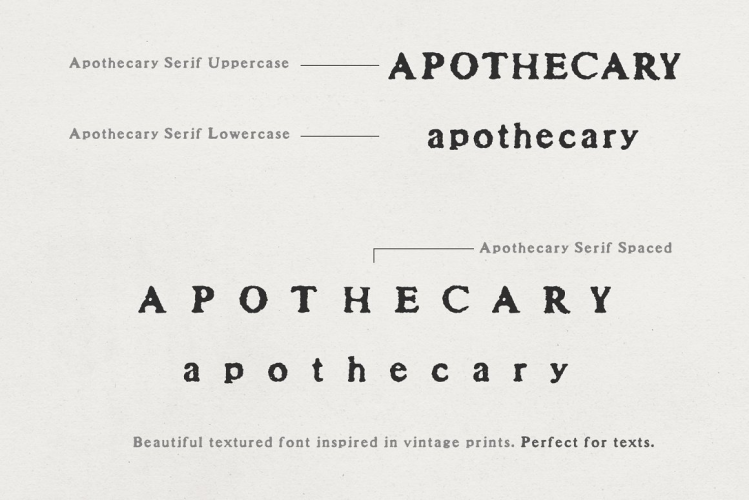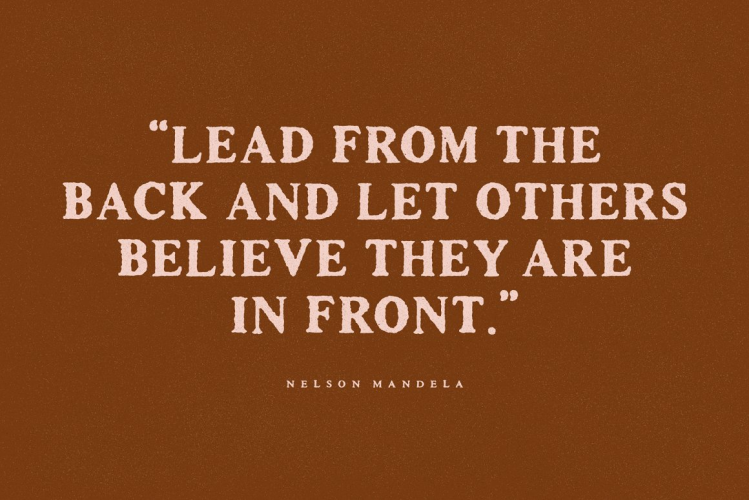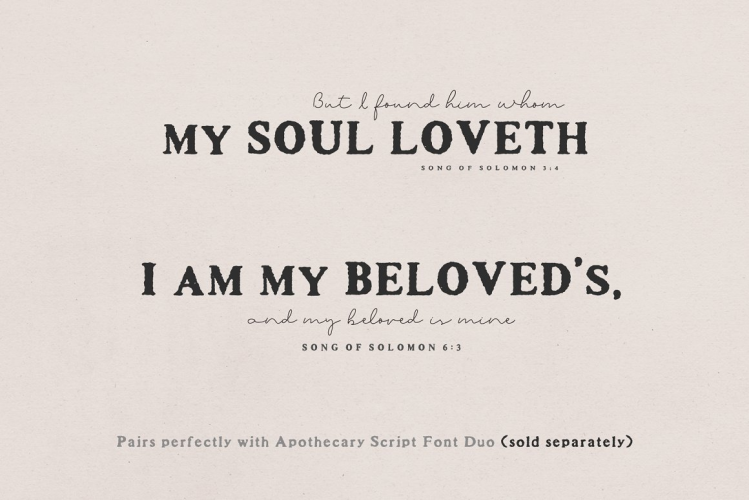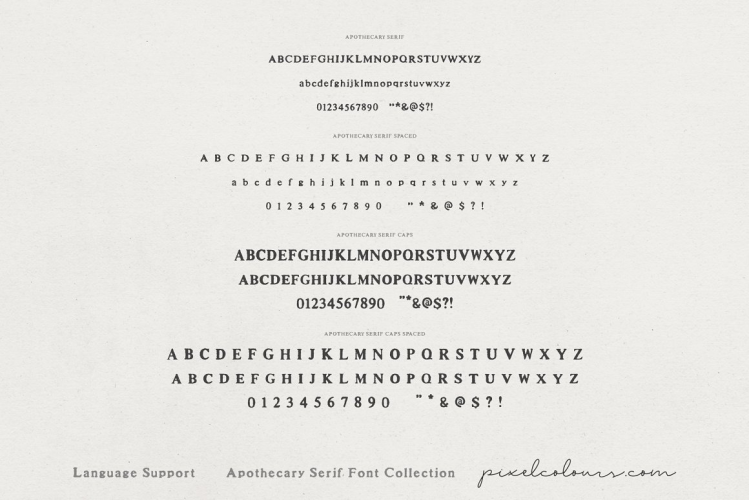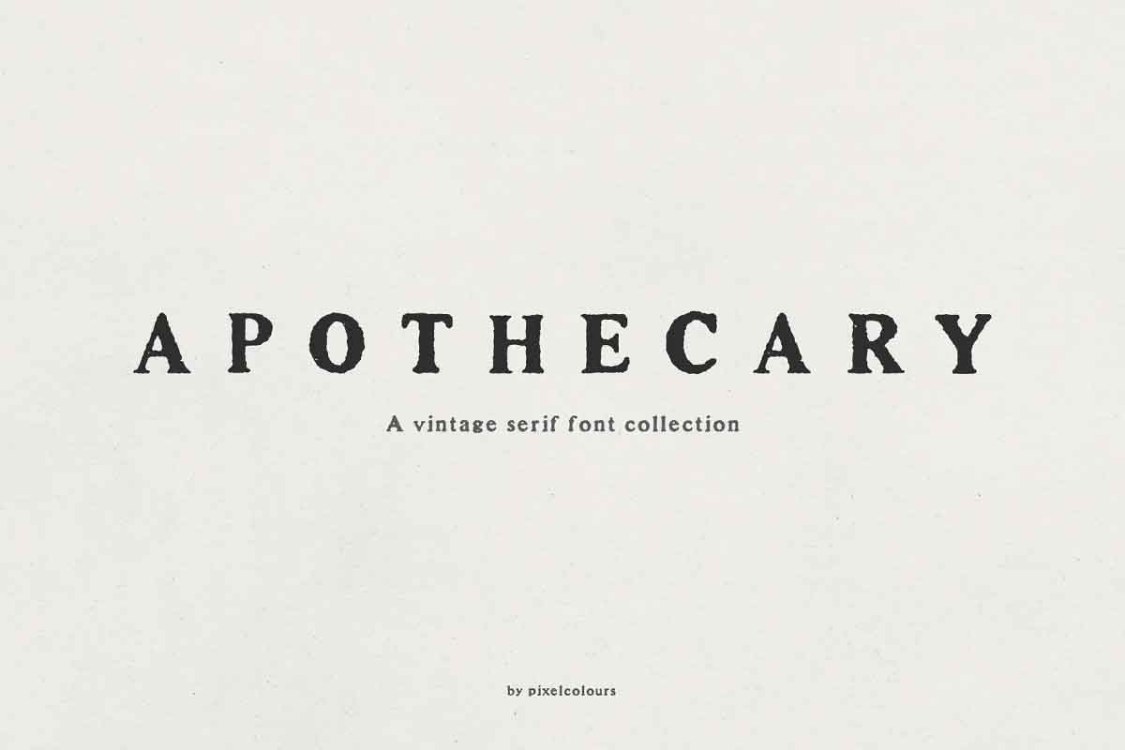
Apothecary Font
Apothecary is a serif font collection inspired by vintage and antique prints. It is excellent for texts or headings and perfect as a pairing font. Design quotes, packaging, wedding invites or labels, and branding in a vintage style. Lovingly designed to match my original Apothecary Script (sold separately)
This beautifully crafted typeface embodies all of my feelings of nostalgia and handcrafting. Nevertheless, you can have custom-made soap labels, build signs for boutiques, and give your branding an antique and clean look. This font will add to your eternal charm and make it shine by itself.
The font will be used in many areas, like digital graphics and printed objects. It helps to combine the reality of history with the efficient demands of usage in modern society. This certainly makes it handy for writers who strive to add flavour and history to their work.
Where Apothecary Font works best
Apothecary Font gives long-form text a classic, trustworthy rhythm — ideal for magazine spreads, annual reports and book interiors.
Pair Apothecary Font with generous letter-spacing for wordmarks in fashion, hospitality, wine and jewellery branding.
Use Apothecary Font for slide titles in Keynote, PowerPoint or Google Slides to add authority without looking dated.
What is Apothecary Font good for?
Apothecary Font is a Serif Fonts typeface tagged Branding, Clean, Modern, Packaging. It works well for headlines, logos, posters, social media graphics and branding projects that need a distinctive serif fonts look.